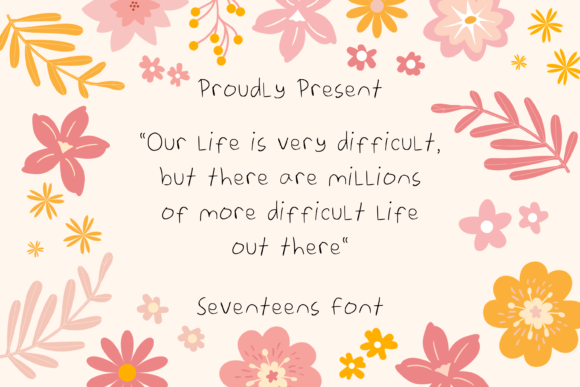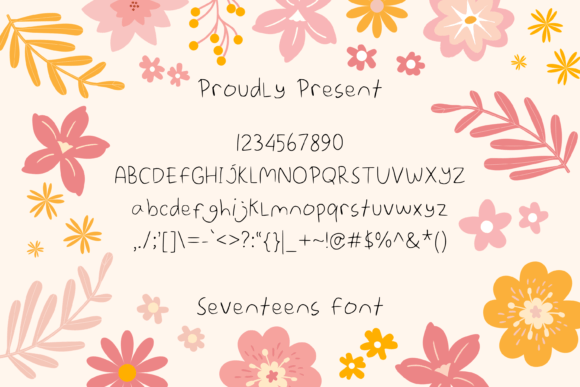
Introduction to Seventeens Font
Seventeens font is a cute and playful handwritten typeface that exudes youthful charm.
With its whimsical strokes and friendly curves, this font adds a dash of fun and creativity to your projects Ideal for crafting eye-catching posters, invitations, and designs that capture the spirit of carefree creativity, Seventeens font is sure to make your text stand out with a touch of adorable playfulness.
Key Features of Seventeens Font
Why Choose Seventeens Font?